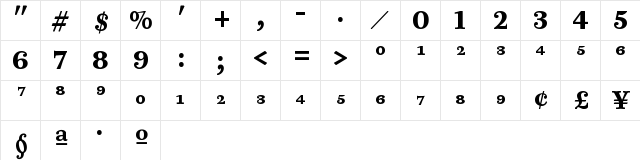
PB6TTP-BoldFrac Regular
Design Context for PB6TTP-BoldFrac Typeface
PB6TTP-BoldFrac is a composed and adaptable typeface that performs quietly and consistently across a wide range of design contexts. The heavy weight commands attention and anchors typographic hierarchies.